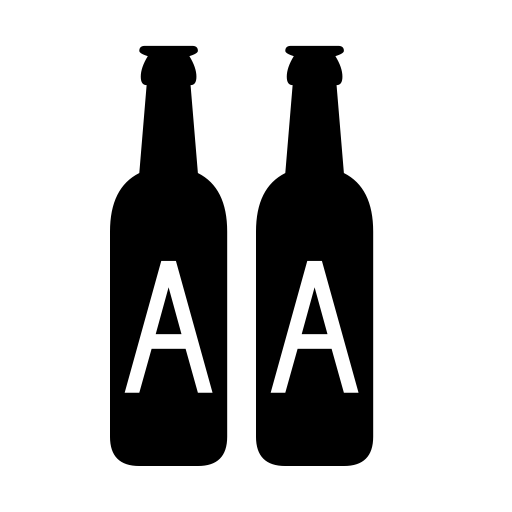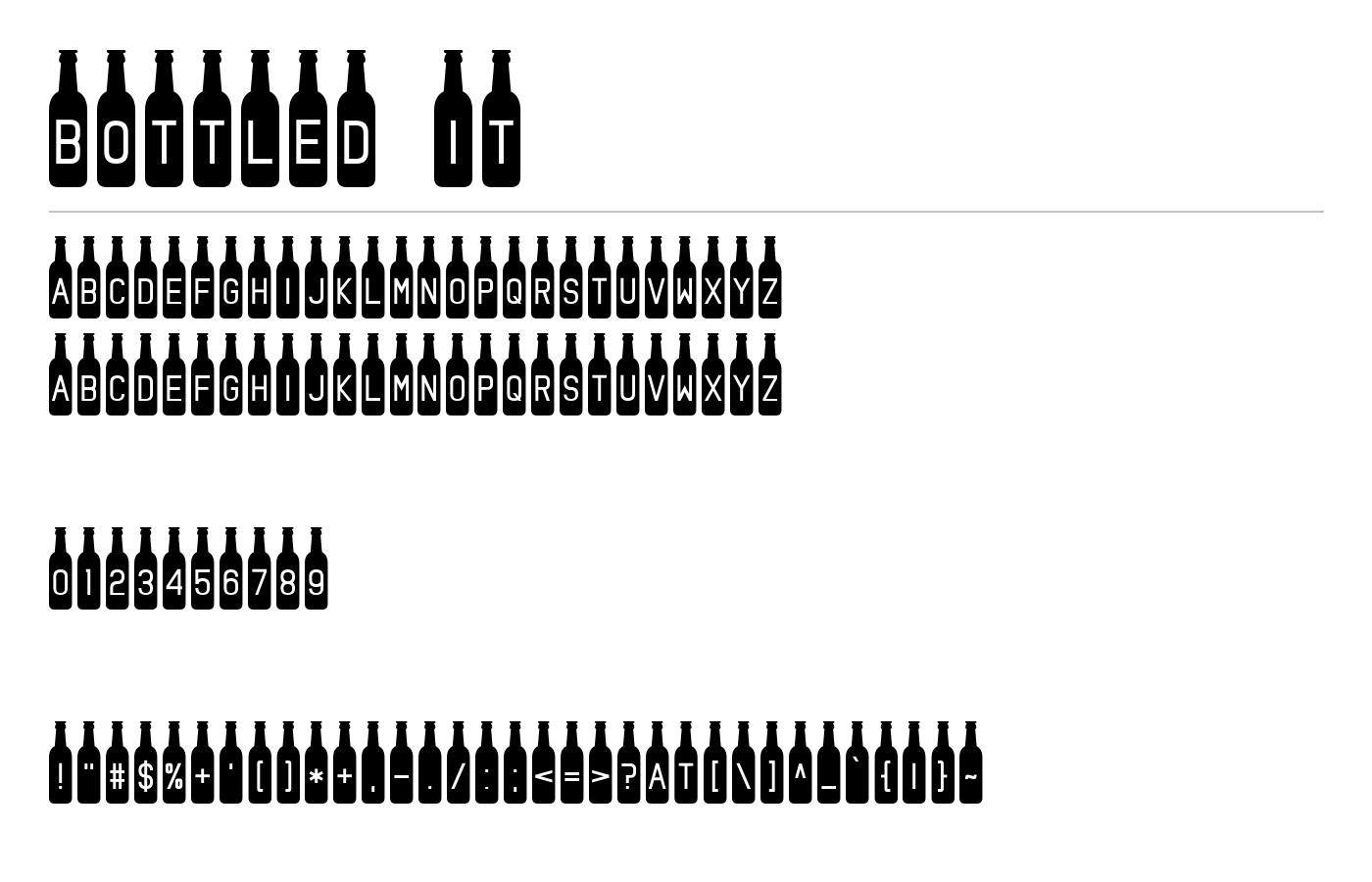
Bottled It is a playful and bold display font that creatively uses bottle-shaped outlines to frame each character, giving it a distinctive and thematic look. This uppercase-only font features clean, narrow letterforms with consistent weight and a modern, geometric style, making it perfect for packaging, branding, or event designs related to beverages or casual, fun environments. Its unique design instantly draws attention and adds a quirky personality, ideal for logos, posters, and signage where a lively and memorable impression is desired.
Bottled It Font
About Bottled It Font